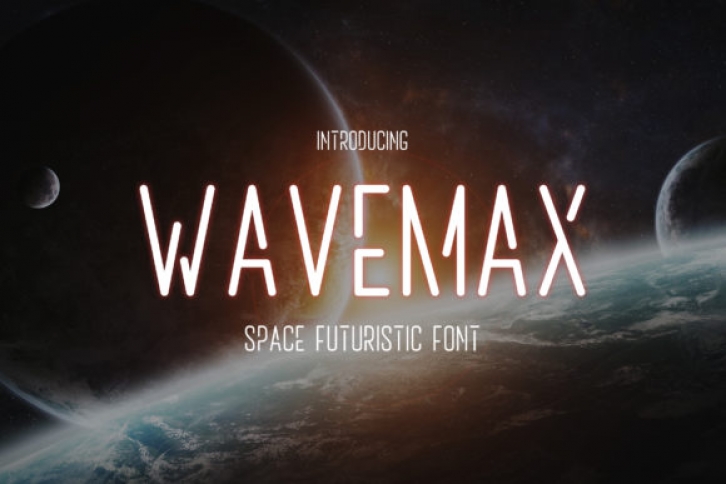
Wavemax is a simple and futuristic display font. It can easily be matched to an incredibly large set of projects, so add it to your creative ideas and notice how it makes them stand out!